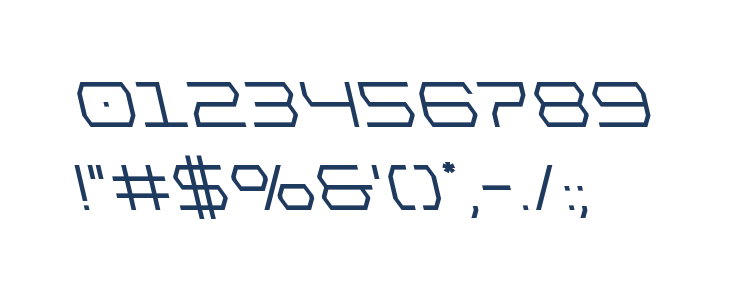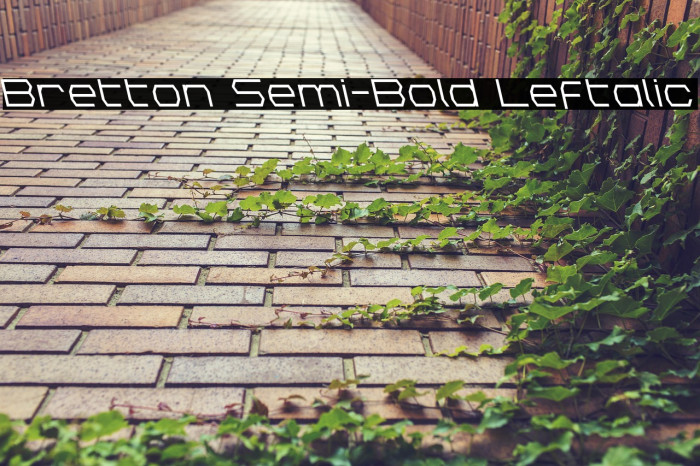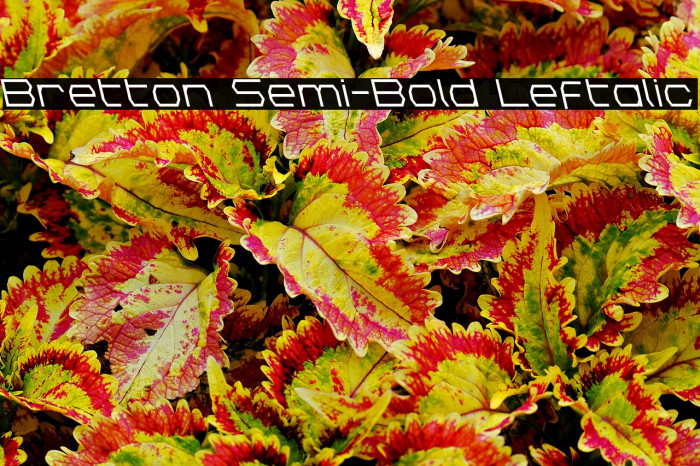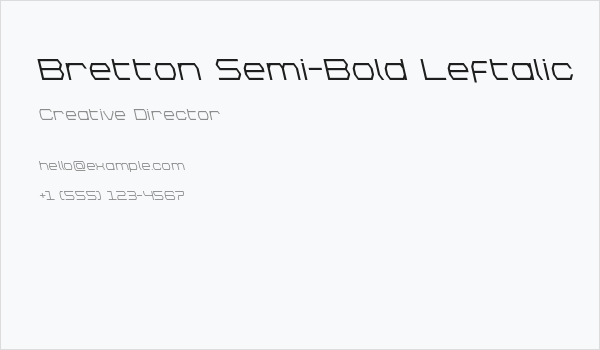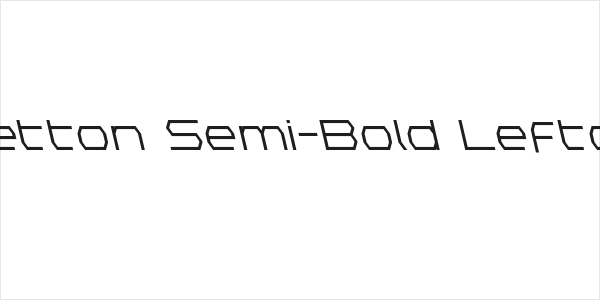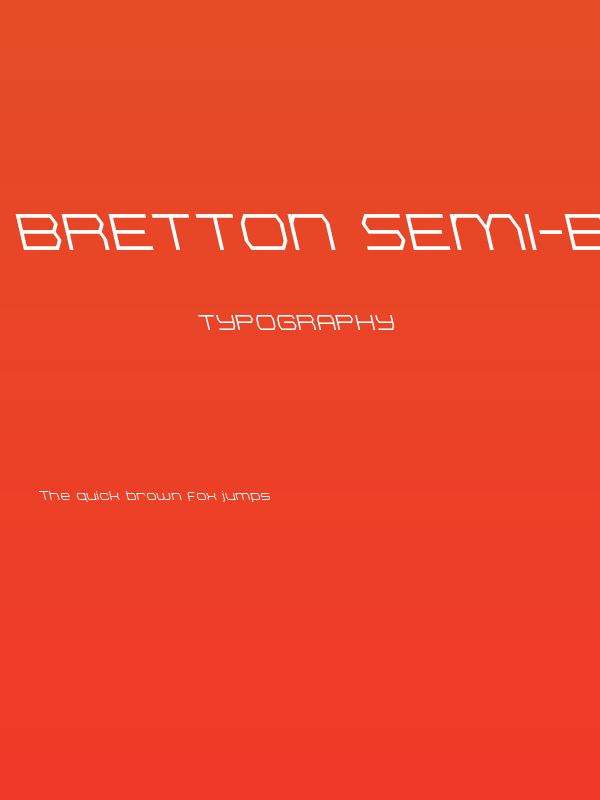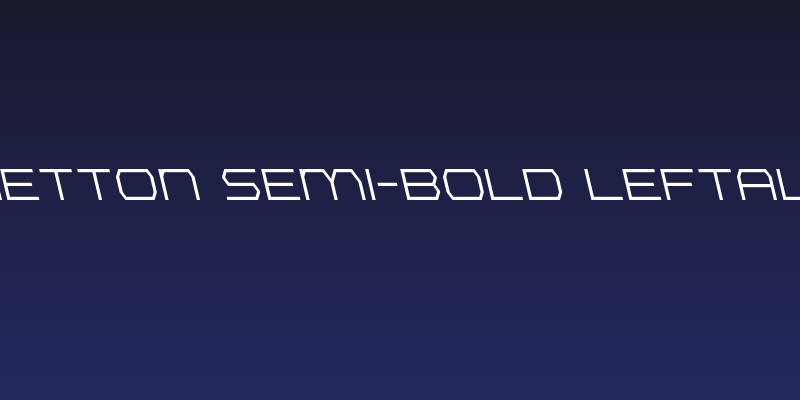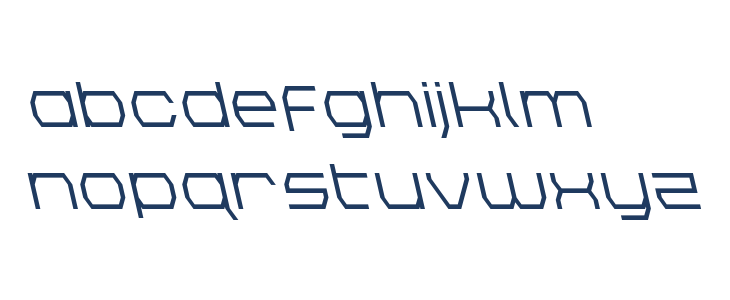
Bretton Semi-Bold Leftalic Font
Bretton Semi-Bold Leftalic Description
This font features a geometric and angular design, characterized by sharp edges and a futuristic aesthetic. The letters are constructed with straight lines and acute angles, giving it a technical and modern appearance. The uppercase and lowercase letters maintain a consistent style, with a slight slant to the left, adding a dynamic feel. The numerals and special characters follow the same design principles, ensuring uniformity across all glyphs. The font's unique style makes it stand out, suitable for projects that require a contemporary and edgy look.
| Proposed Projects | Ideal for technology branding, sci-fi themed projects, video game interfaces, and modern advertising. |